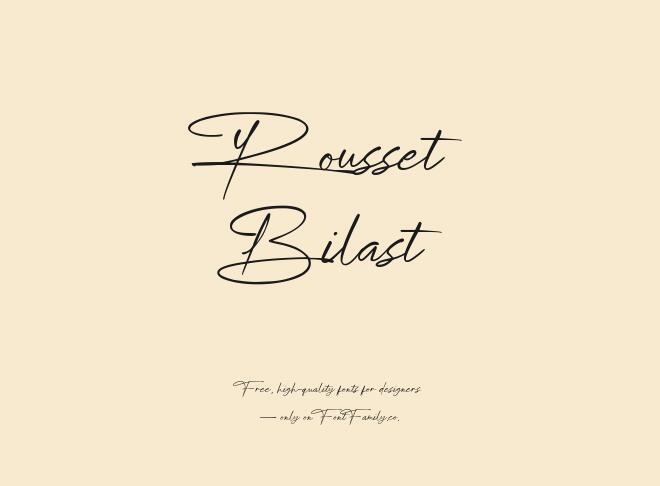
Rousset Bilast Font
Rousset Bilast Font is a unique handwritten font with a rustic and playful touch, expertly crafted by Bilast Foundry. Released in 2018, its distinct style mimics the artistry of hand lettering, making it an excellent choice for projects that require a casual, yet refined aesthetic. Its playful character and retro-inspired design make it stand out, while the decorative elements add a touch of charm and sophistication. It's a versatile font that works wonderfully in a variety of design scenarios, from branding and packaging to social media posts and wedding invitations. Rousset Bilast Font is comparable to fonts like 'Brush Up' and 'Backlash', but its rustic undertones give it a unique edge. It's a font that not only catches your eye but also tells a story, making it a great choice for designers.